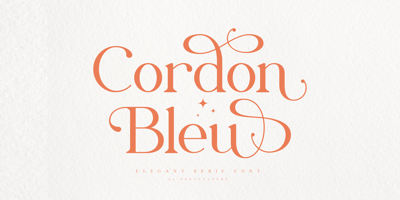
Cordon Bleu
Cordon Bleu font
Cordon Bleu Font Family was designed by Revo Farsiky and published by Pen Culture. Cordon Bleu contains 1 styles and family package options. Proudly present our newest font called “Cordon Bleu”Cordon bleu is a modern and elegant serif font that comes with more than 50 alternate. With alternates that have an elegant shape, this font will be very suitable for various needs such as branding, logo design, magazines, posters, Instagram feeds and of course there are many more that you can explore with this font.I really hope you enjoy it – please do let me know what you think, comments & likes are always hugely welcomed and appreciated. More importantly, please don’t hesitate to drop me a message if you have any issues or queries.Thank you